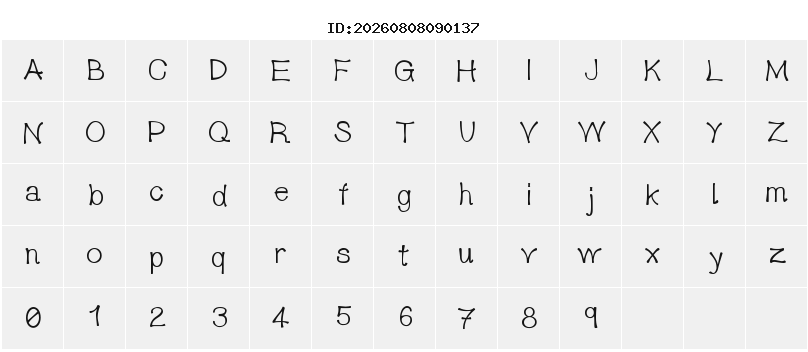
PowerPaula Preview
• Font Name: PowerPaula
• Designer: Angel Garcia Rubio
About PowerPaula.ttf
PowerPaula.ttf is a modern, elegant sans-serif font designed for ultimate readability and visual harmony. Perfect for branding, headlines, web design, and print materials.